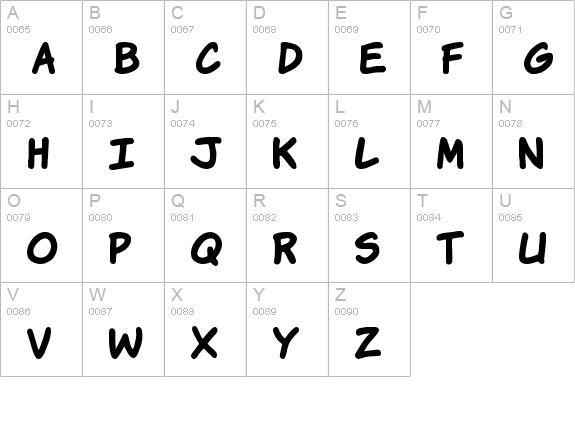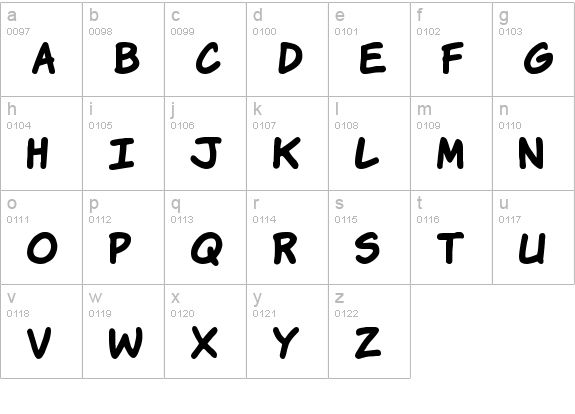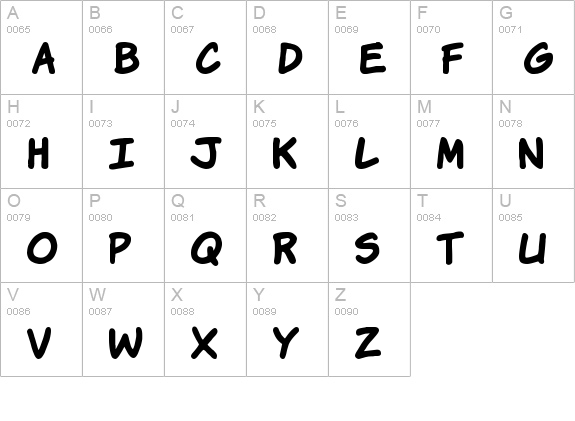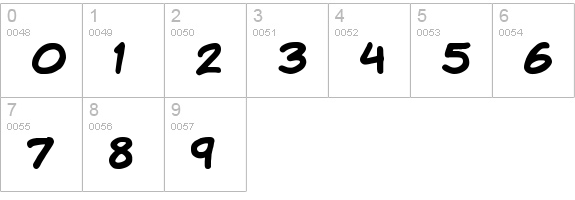
Komika Hand Bold is a strong, high-contrast variant in the Komika typeface family \xE2\x80\x94 well suited to headlines, attention-grabbing titles, and strong calls-to-action.
Komika Hand Bold is a charming and quirky font that exudes a playful and whimsical vibe. The thick, hand-drawn strokes give it a unique and distinctive look that is perfect for adding a touch of fun to any design project. This font is ideal for a variety of uses, from branding and packaging to social media graphics and invitations. Its bold and dynamic appearance makes it stand out and grab attention, while still maintaining a sense of warmth and friendliness. One of the best things about Komika Hand Bold is that it is completely free to download at FontsMarket.com. This means that you can easily access this delightful font and start using it in your projects right away, without having to worry about any extra costs. So why wait? Add a touch of personality and creativity to your designs with Komika Hand Bold today!